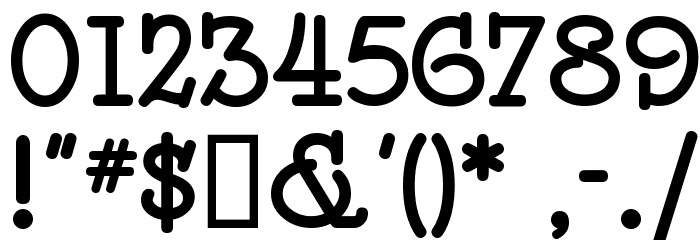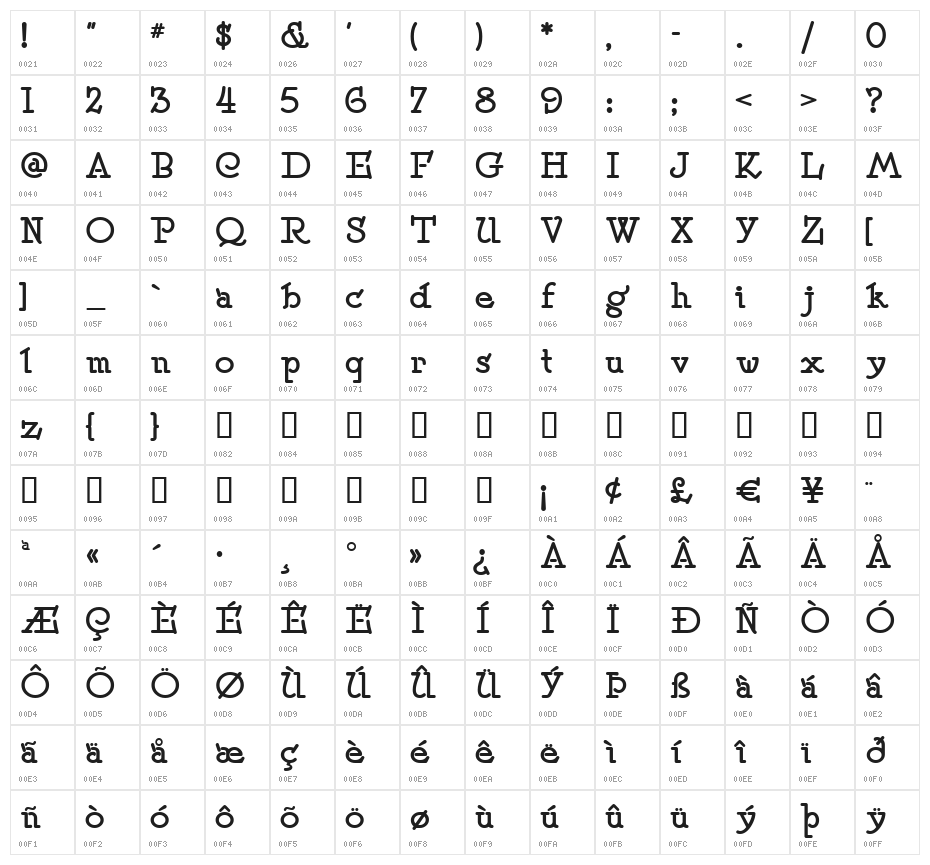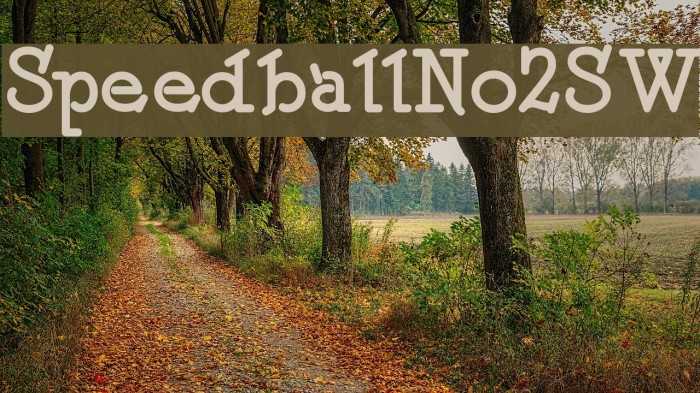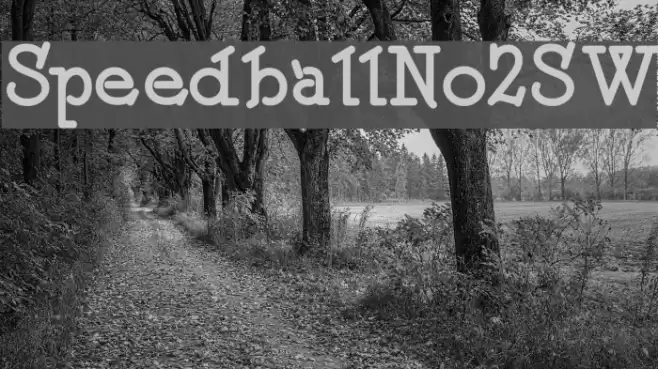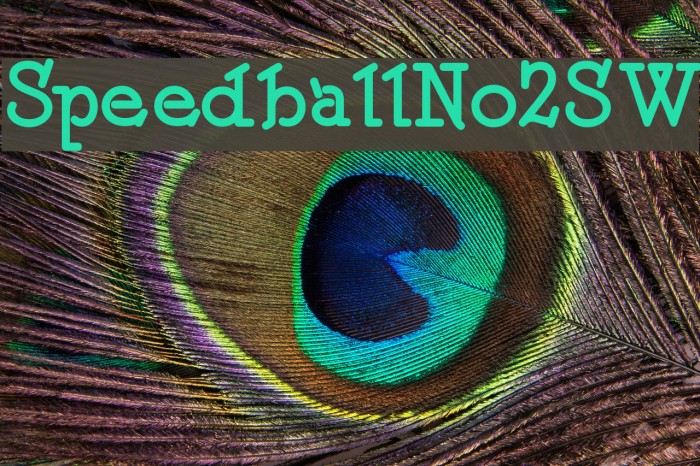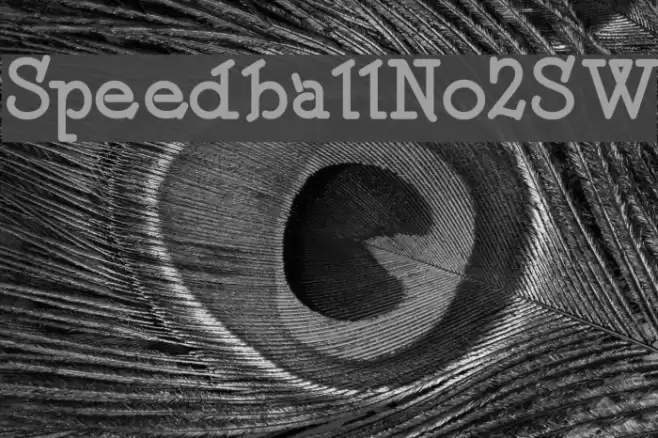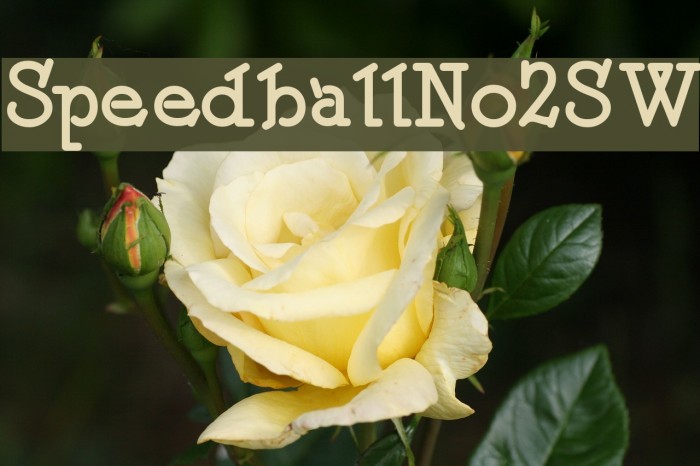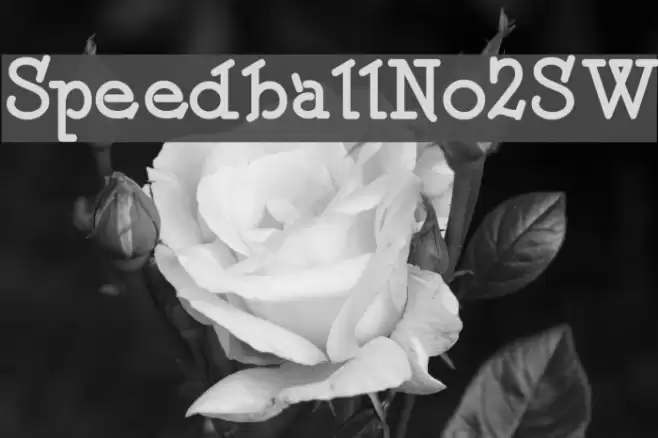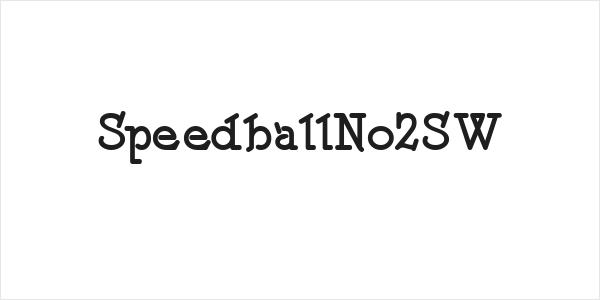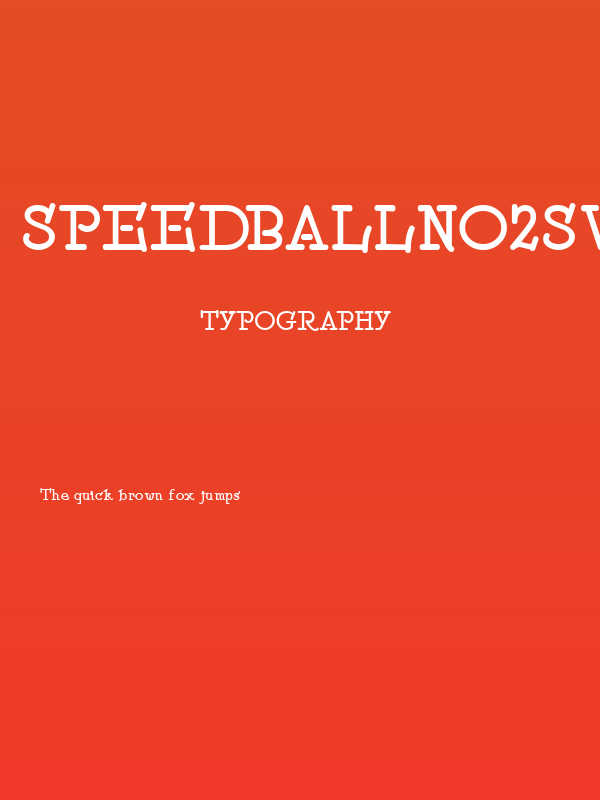
SpeedballNo2SW Font
SpeedballNo2SW Description
This font features a playful and bold design with rounded serifs and a slightly condensed structure. The characters exhibit a unique blend of vintage and modern aesthetics, making it stand out with its distinctive curves and bold strokes. The uppercase letters are particularly striking with their uniform height and consistent stroke weight, while the lowercase letters maintain a harmonious balance with a slightly whimsical touch. Numbers are clear and legible, with a consistent style that complements the alphabetic characters. Special characters are well-integrated, maintaining the overall playful yet robust appearance of the font.
| Proposed Projects | Ideal for branding projects, playful headlines, children's books, and retro-themed designs. |